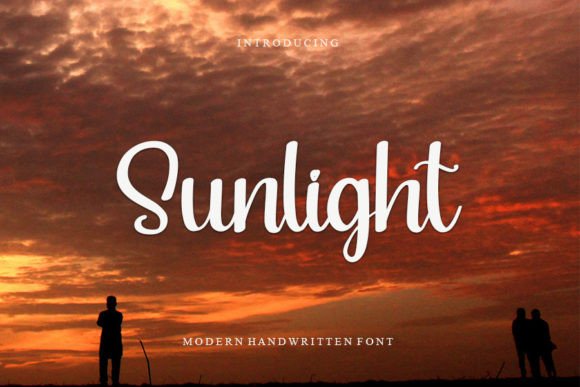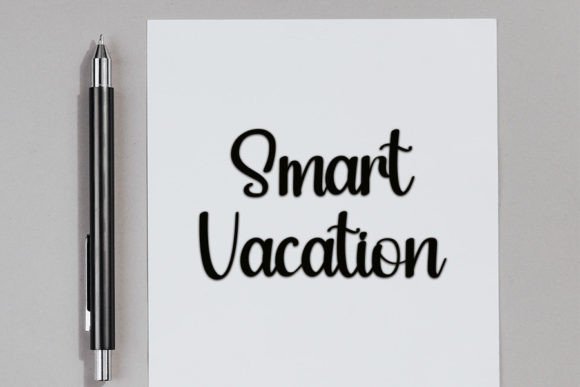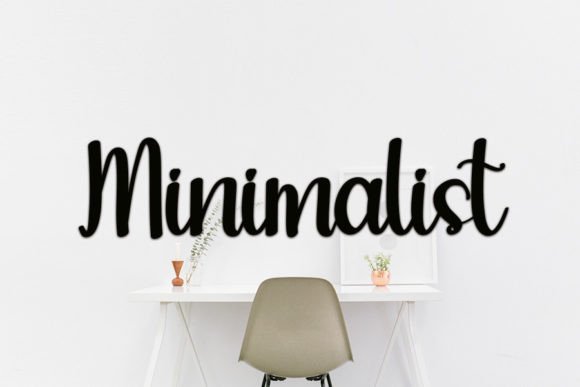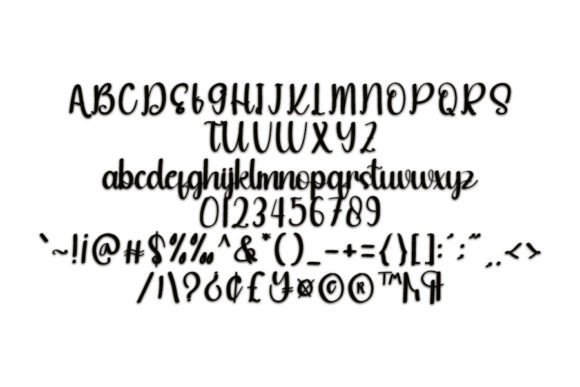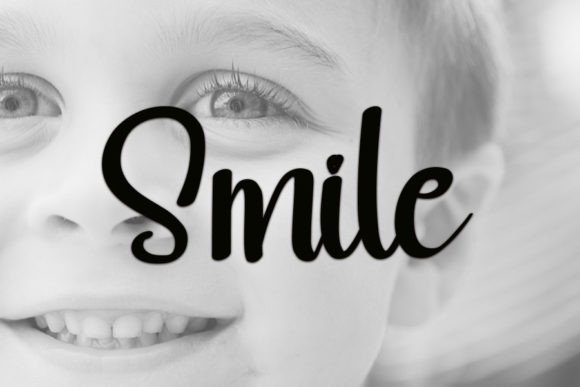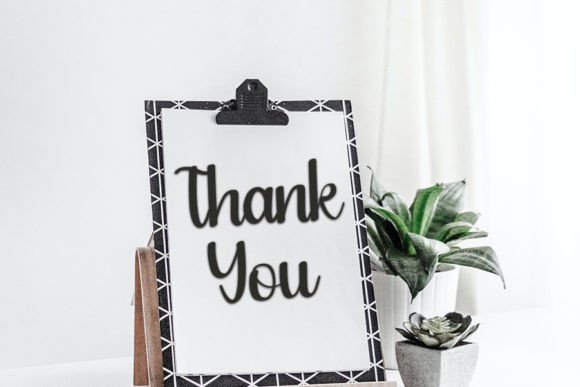
Sunlight
About Sunlight
Sunlight is a lovely handwritten font. Not too thin and not too thick, balanced and varied, this font was designed to enhance the beauty of your projects.